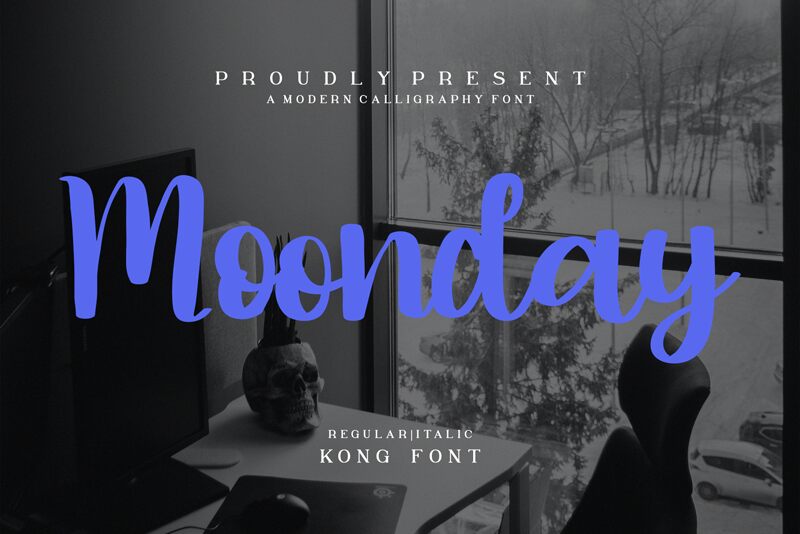
Moonday font family by Kong Font features 4 handwritten font styles full of beauty and a personal signature look. Its fluid and connected style offers simplicity to the eye and brings beauty to even the most mundane designs. Moonday displays clean characters with a dazzling gradient that appears in the subtle transition between thick and thin characters.
If you’re currently working on your logo and brand design for example, Moonday is the free font to use with its contemporary look that always attracts attention. Effectively add these fonts to posters, invitations, album covers, stickers, typography artwork, etc.